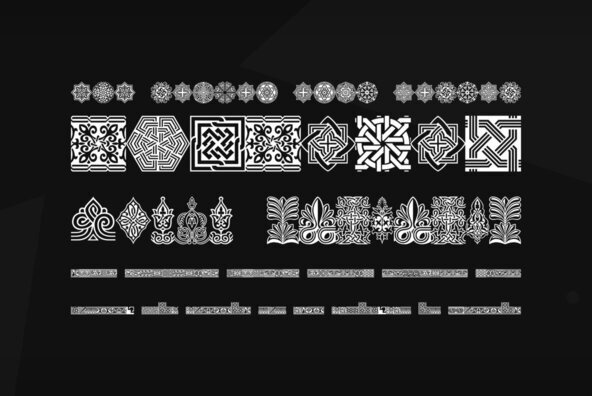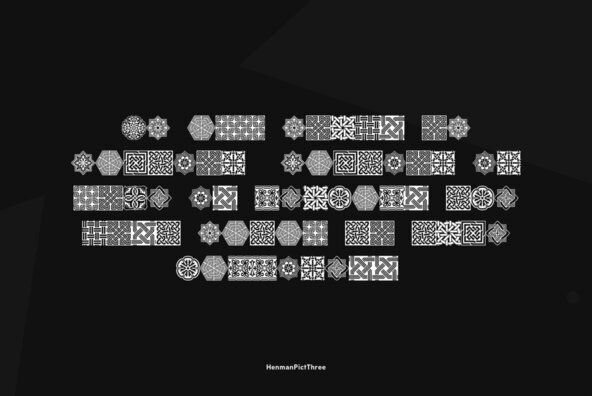
PT Henman Pictograms™ was based on Armenian ornaments revived by Henrik Mnatsakanyan, with participation of Manvel Shmavonyan. The digital version was developed for ParaType in 2002 by Manvel Shmavonyan.